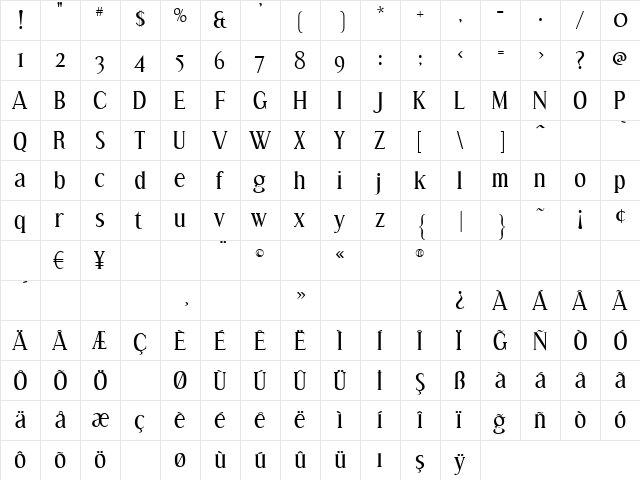
TR Effloresce Regular
Design Context for TR Effloresce Typeface
TR Effloresce is a composed and adaptable typeface that performs quietly and consistently across a wide range of design contexts.